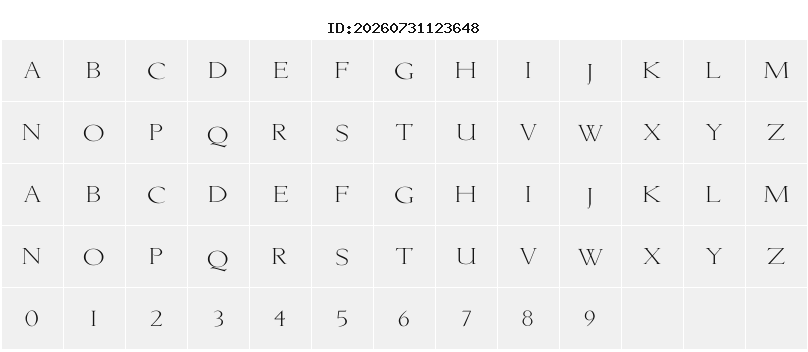
Lichtner Wd.ttf is a modern, elegant sans-serif font designed for ultimate readability and visual harmony. Perfect for branding, headlines, web design, and print materials.